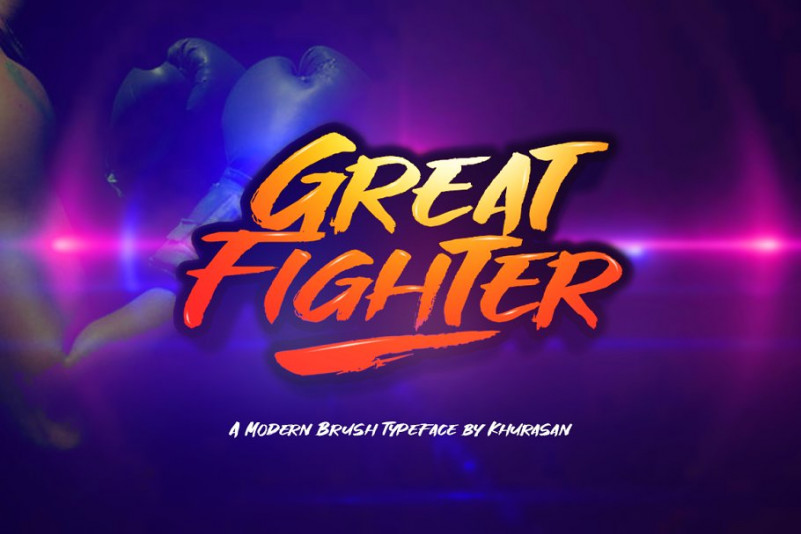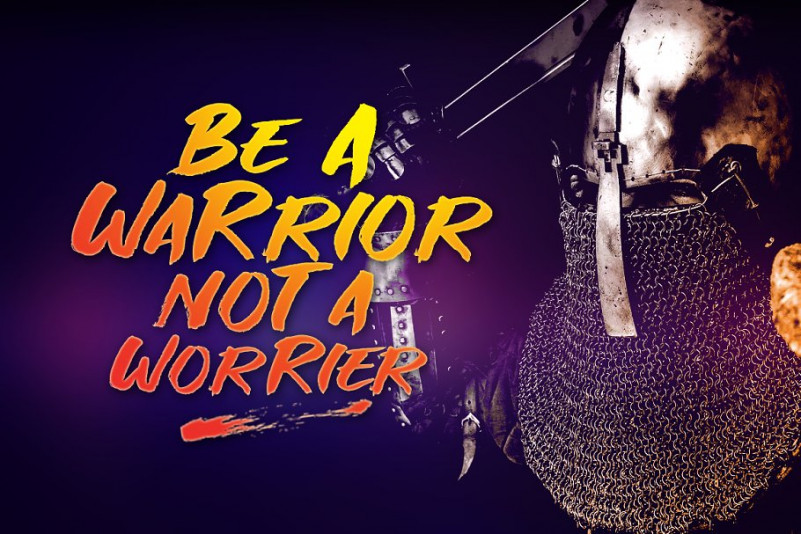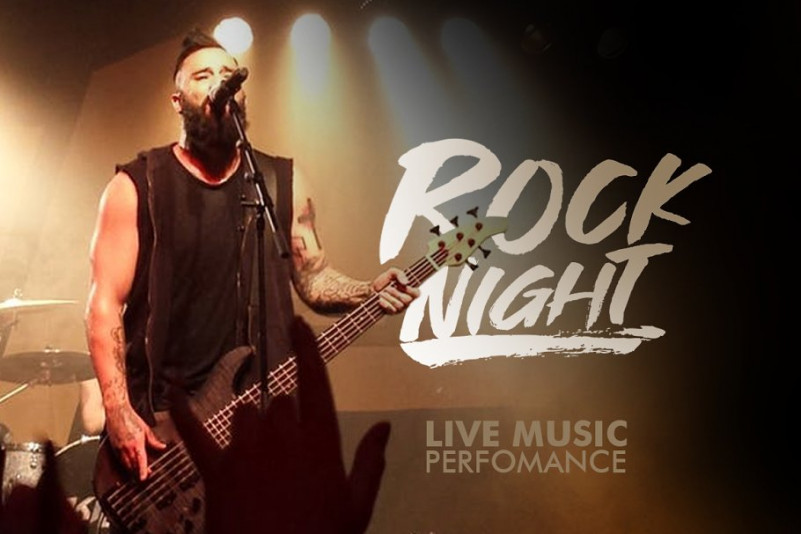
Great Fighter Font
The Great Fighter is a fresh handwritten font brush, elegant and vintage feel character set. The Great Fighter font includes a full set capital and lowercase letters, as well as multi-lingual support, currency figures, numerals, & punctuation.